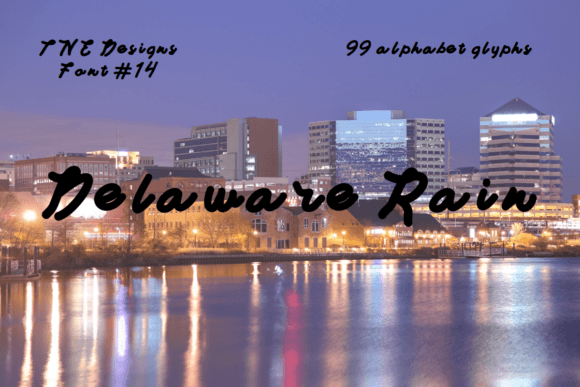
Dive into the exquisite world of Delaware Rain, a captivating script font that dances across your digital canvas with playful energy and captivating charm. Its undeniable allure lies in its ability to transform ordinary words into extraordinary visual masterpieces. Whether you're an aspiring graphic designer, a seasoned creative professional, or simply a lover of beautiful typography, Delaware Rain is the perfect font to ignite your imagination and elevate your designs to new heights.
With its playful curves and energetic strokes, Delaware Rain exudes a sense of joy and whimsy that's sure to leave a lasting impression. It's the perfect choice for logos, branding, social media posts, invitations, greeting cards, and any other project where you want to add a touch of personality and charm. Unleash your creativity and let Delaware Rain lead you on a journey of visual storytelling.
Step into a world where your designs come alive with the magic of Delaware Rain. Experience the delight of crafting logos that pop off the page, branding that captivates audiences, and social media posts that garner likes and shares. With Delaware Rain, you'll have the power to create designs that resonate with your audience on a deeper level, leaving them enchanted by your artistic prowess.
Imagine the possibilities as you explore the creative horizons with Delaware Rain. Craft wedding invitations that evoke a sense of romance and elegance, greeting cards that warm hearts with their heartfelt sentiments, and flyers that announce events with a touch of playful intrigue. Let Delaware Rain be your muse as you weave visual tapestries that capture attention and create lasting memories.
The journey of a thousand designs begins with a single font. And with Delaware Rain by your side, you'll embark on a creative odyssey that will leave you breathless. Its enchanting beauty and versatility will inspire you to push the boundaries of your imagination and create designs that leave an indelible mark on the world. Let Delaware Rain be the spark that ignites your creative fire and propels you to new heights of artistic achievement.